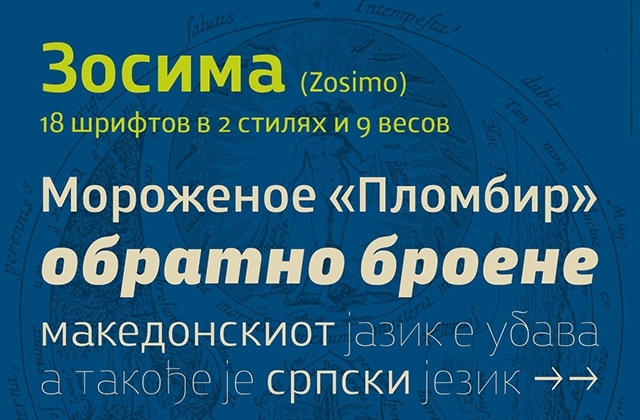
Zosimo Cyrillic Font
Zosimo Cyrillic Font flourishes in Eastern European cultural projects, Orthodox church publications, Russian literature translations, Bulgarian heritage materials, Serbian historical documentaries, Ukrainian cultural festivals, Macedonian academic texts, multilingual corporate communications, international diplomatic documents, Eastern Orthodox liturgical books, Slavic language education materials, and cross-cultural marketing campaigns where authentic Cyrillic typography and cultural sensitivity create meaningful connections.
This distinguished typeface generates excitement through its masterful preservation of Cyrillic typographic traditions while incorporating contemporary design refinements that honor centuries of Slavic literary heritage. Zosimo Cyrillic Font stands as a testament to the rich cultural legacy of Cyrillic script with its carefully crafted letterforms that respect traditional calligraphic principles while meeting modern readability standards. The font's sophisticated design approach balances historical authenticity with functional clarity, featuring proportions and character relationships that reflect the unique characteristics of Cyrillic writing systems. Its distinctive character embodies the intellectual depth and cultural richness of Eastern European and Slavic civilizations.
The Zosimo Cyrillic Font family encompasses comprehensive Cyrillic variations including Regular, Light, Medium, Bold, and Heavy weights, each supporting full Cyrillic character sets for Russian, Bulgarian, Serbian, Ukrainian, Macedonian, and other Slavic languages. The collection features traditional and modern Cyrillic letterforms, historical alternates, and specialized glyphs for ecclesiastical and academic applications. Advanced OpenType features include contextual alternates, stylistic sets for different Cyrillic traditions, and comprehensive diacritical mark support for accurate multilingual typography.
International organizations and cultural institutions consistently select Zosimo Cyrillic Font Free Download for projects requiring authentic Cyrillic typography that respects cultural heritage while delivering professional performance. This remarkable typeface excels in multilingual applications where accuracy, cultural sensitivity, and typographic excellence are essential for effective cross-cultural communication. The font's traditional foundations make it particularly valuable for academic, religious, and cultural projects that demand authentic representation of Cyrillic writing traditions.
Whether you're developing multilingual publications, creating cultural heritage materials, designing academic research documents, or building international brand communications, Zosimo Cyrillic Font delivers unmatched Cyrillic authenticity. Its ability to convey cultural respect, historical awareness, and typographic excellence makes it invaluable for organizations working with Slavic languages and Eastern European markets. The font's traditional authority ensures your designs will communicate cultural competence and linguistic accuracy essential for successful international communications in Cyrillic-using regions.